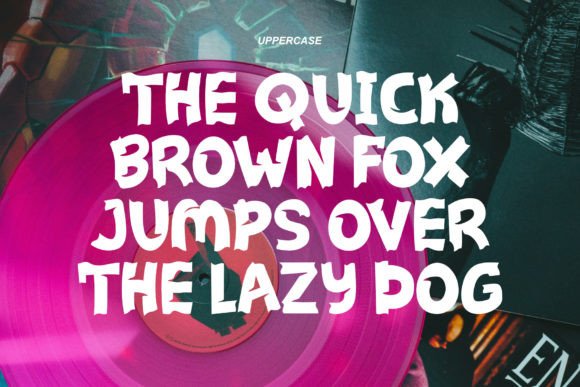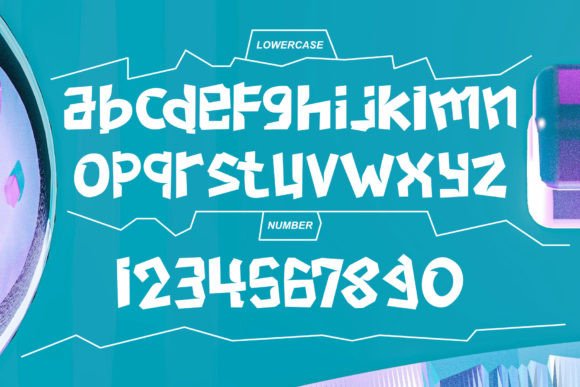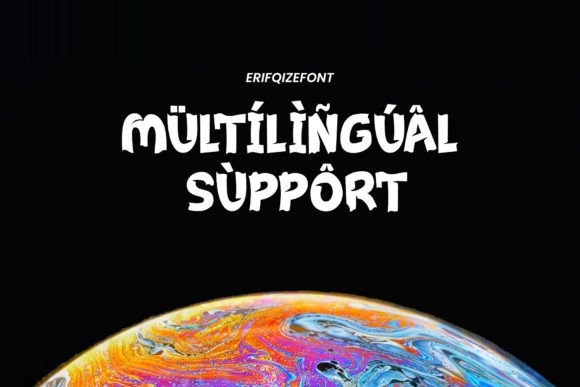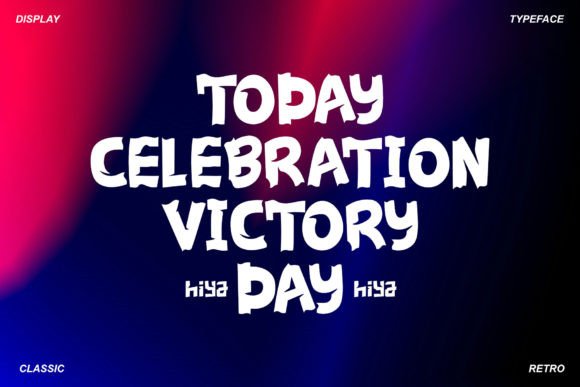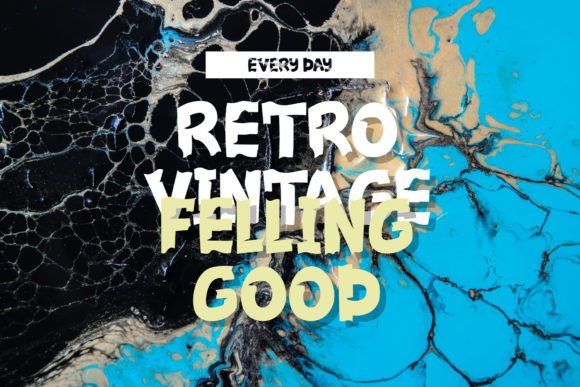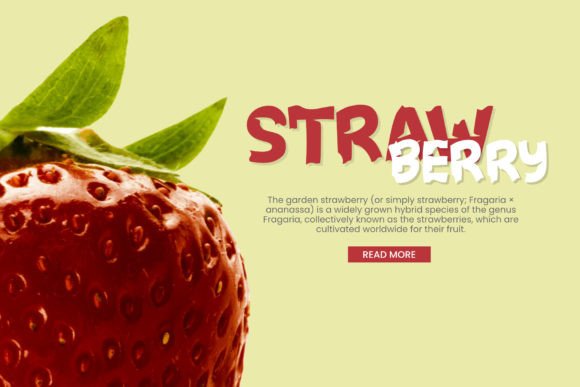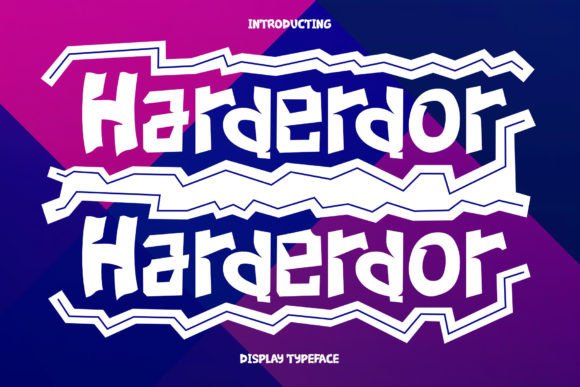
Introducing Harderdor Font: The Ultimate Choice for Fun and Cheerful Designs
In the world of typography, fonts play a crucial role in conveying the tone and personality of a design. If you’re looking for a font that exudes a fun and cheerful vibe, look no further than Harderdor. This playful, display, and cartoon-themed sans serif font is perfect for designers and crafters who want to add a touch of humor and joy to their creative projects.
The Characteristics of Harderdor Font
Harderdor font is a bold and striking typeface that is sure to grab attention in any design. Its strong and sturdy characters make it perfect for use in posters, comics, and other materials that require a playful and eye-catching font. The sans serif design of Harderdor gives it a clean and modern look, while its bold lines and curves add a touch of playfulness and whimsy.
What Makes Harderdor Font So Versatile?
One of the things that sets Harderdor font apart from other fonts is its versatility. This font can be used in a wide range of creative projects, from posters and comics to children’s books and craft projects. Its playful and cheerful vibe makes it perfect for designs that require a lighthearted and humorous touch. Whether you’re creating a design for a kids’ party or a marketing campaign for a new product, Harderdor font is sure to bring a smile to people’s faces.
Using Harderdor Font in Your Designs
Harderdor font is easy to use and can be incorporated into a variety of design projects. Here are a few ideas for using Harderdor font in your designs:
- Posters: Use Harderdor font to create eye-catching posters for events, promotions, or products. Its bold and playful design makes it perfect for grabbing attention and conveying important information.
- Comics: Add a touch of humor and whimsy to your comics with Harderdor font. Its cartoon theme and playful design make it perfect for comic books, graphic novels, and other illustrated materials.
- Craft Projects: Use Harderdor font to add a personal touch to your craft projects, such as scrapbooking, card making, and DIY signs. Its fun and cheerful vibe makes it perfect for handmade projects that require a playful and creative touch.
Why Designers and Crafters Love Harderdor Font
Designers and crafters love Harderdor font for its unique and playful design. Here are a few reasons why:
- Easy to Read: Despite its playful design, Harderdor font is easy to read, even in large blocks of text. This makes it perfect for designs that require a lot of information to be conveyed.
- Highly Versatile: Harderdor font can be used in a wide range of design projects, from posters and comics to craft projects and children’s books.
- Fun and Cheerful: Harderdor font is the perfect choice for designers and crafters who want to add a touch of humor and joy to their designs.
In conclusion, Harderdor font is a fun and cheerful typeface that is perfect for designers and crafters who want to add a playful touch to their designs. Its bold and striking characters make it perfect for grabbing attention, while its playful and cartoon theme make it perfect for designs that require a lighthearted and humorous touch. Whether you’re creating a poster, comic, or craft project, Harderdor font is sure to bring a smile to people’s faces. So why not give Harderdor font a try and see how it can add a touch of fun and joy to your designs?
Get Ready to Play with Imagination!
Harderdor font invites you to play with imagination and bring happiness to every word written. With its strong and striking characters, Harderdor font is the perfect choice for designers and crafters who want to create designs that are both fun and functional. So don’t be afraid to get creative and experiment with Harderdor font in your next design project. With its versatility, playfulness, and cheerful vibe, Harderdor font is sure to become a favorite in your design arsenal.